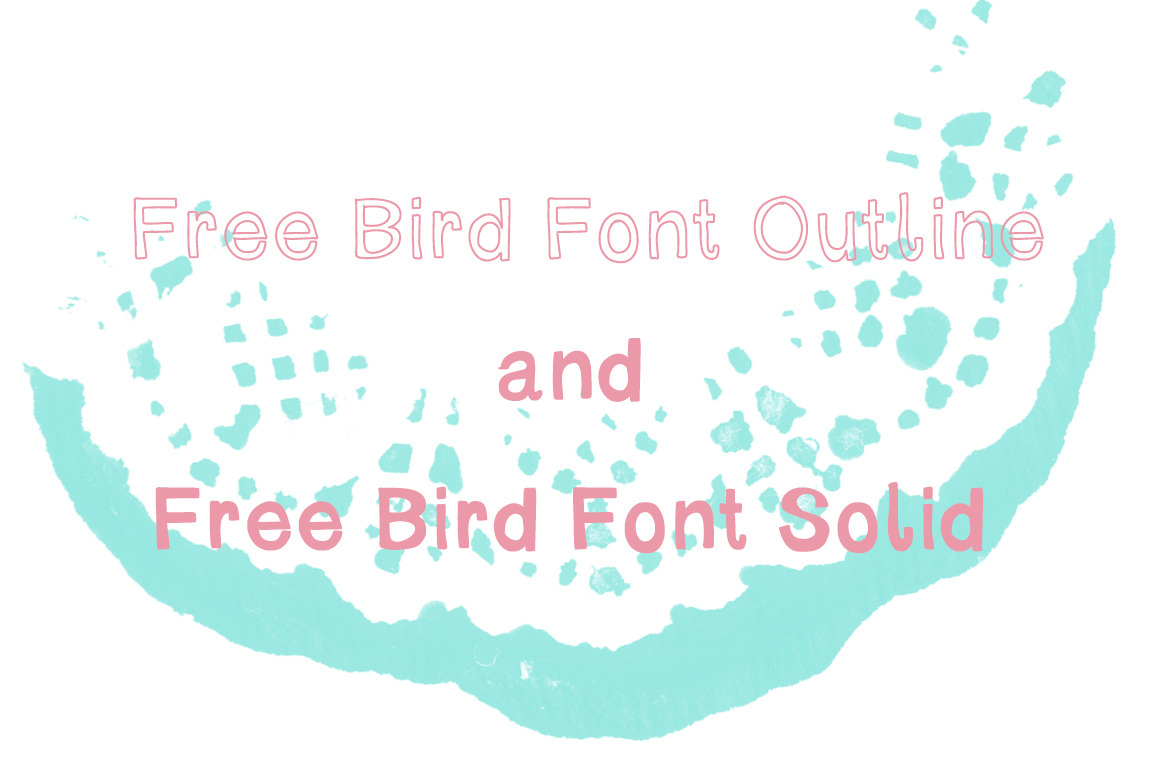
Freebird Font
A fun, free-spirited font for summertime. Now in both solid and outline. Upper-case, Lower-case, Numbers, and Symbols included. This is a web font. Please note this font only supports English characters at this time. Thanks!